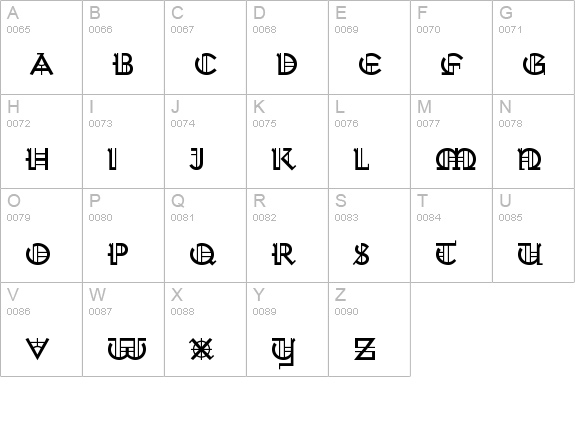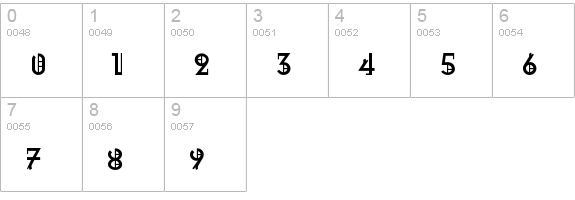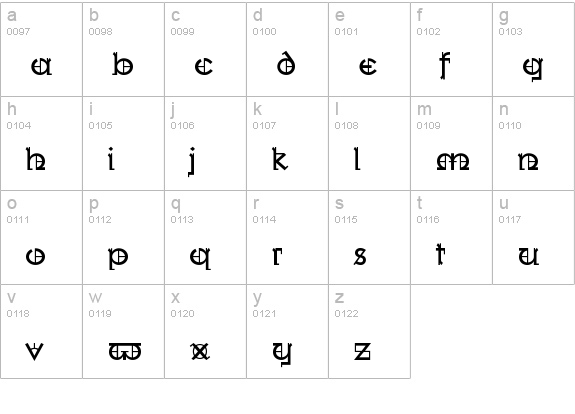
WexfordOakley-Alternates Font Details
Introducing WexfordOakley-Alternates, a stunningly versatile font that exudes elegance and sophistication. With its intricate details and graceful curves, this font is sure to captivate and inspire. Whether you're designing a wedding invitation, a logo for a high-end brand, or creating a beautiful typographic artwork, WexfordOakley-Alternates will elevate your designs to new heights. What sets WexfordOakley-Alternates apart is its unique alternates, which give you the freedom to play and experiment with different letterforms. These alternates add a touch of personalization and creativity to your projects, allowing you to truly make them your own. From swashes to ligatures and stylistic sets, the possibilities are endless. Best of all, WexfordOakley-Alternates is completely free to download at FontsMarket.com. Yes, you read that right – this extraordinary font is yours to use, completely free of charge. FontsMarket.com is proud to offer this exceptional font to designers, artists, and typographers who are looking to make a statement with their work. So why wait? Unlock your creative potential and elevate your designs with WexfordOakley-Alternates. Download it now, for free, at FontsMarket.com and let your imagination run wild. Trust us, once you start using WexfordOakley-Alternates, you'll wonder how you ever lived without it.